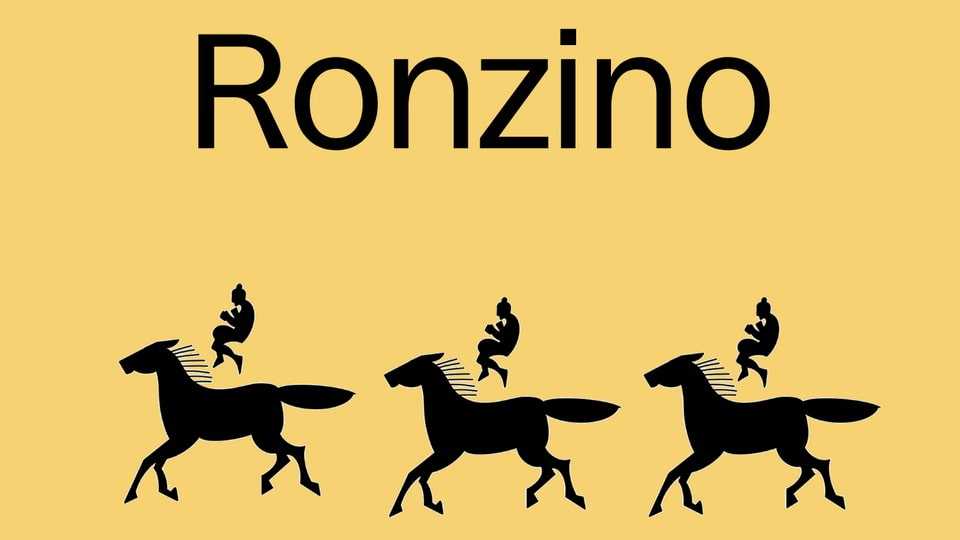
Download CLT Ronzino font, a versatile and modern sans-serif typeface family that combines clean, geometric elegance with subtle humanist touches.
Designer: Nunzio Mazzaferro